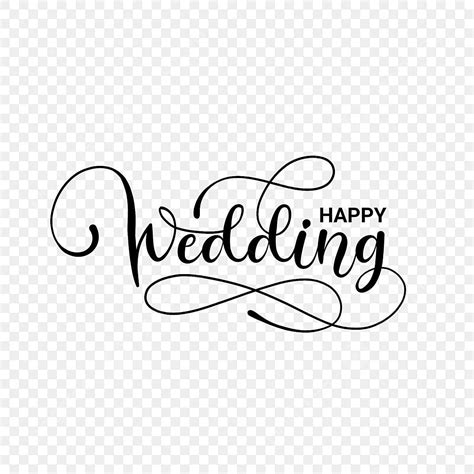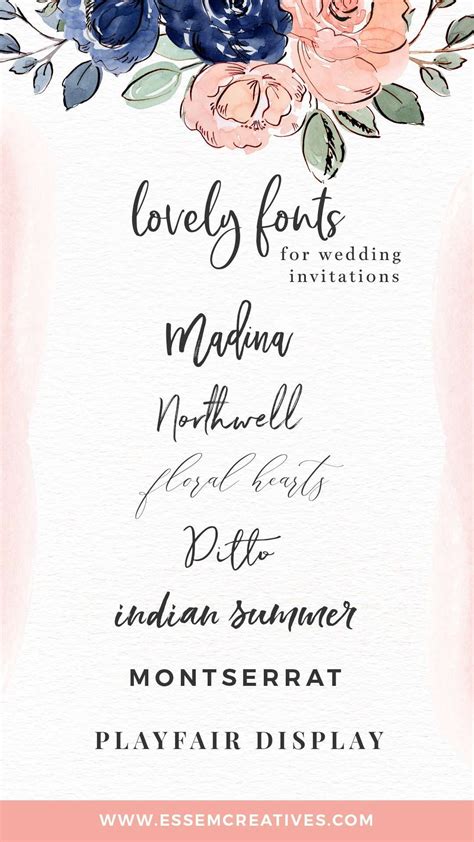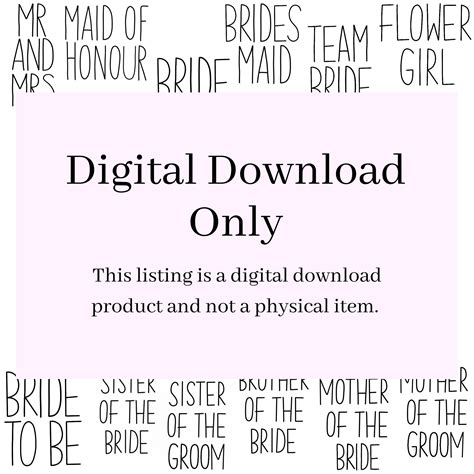
Planning a wedding involves countless details, from the venue and attire to the decorations and invitations. One often overlooked but crucial element is the choice of a Wedding Party Font. The font you select can set the tone for your entire event, reflecting your personal style and the overall theme of your wedding. Whether you're aiming for elegance, whimsy, or modernity, the right font can make a significant impact on how your guests perceive your special day.
Understanding the Importance of a Wedding Party Font
The Wedding Party Font is more than just a way to display text; it's a visual representation of your wedding's aesthetic. A well-chosen font can enhance the beauty of your invitations, menus, signage, and other printed materials. It can also create a cohesive look that ties all your wedding elements together, making your event feel polished and thoughtfully planned.
Choosing the Right Wedding Party Font
Selecting the perfect Wedding Party Font involves considering several factors, including the theme of your wedding, the overall mood you want to create, and the readability of the font. Here are some steps to help you make the best choice:
- Identify Your Wedding Theme: Whether your wedding is rustic, modern, vintage, or bohemian, the font should complement your chosen theme. For example, a rustic wedding might benefit from a handwritten or calligraphy-style font, while a modern wedding could use a sleek, sans-serif font.
- Consider the Mood: Think about the emotions you want to evoke. Elegant and sophisticated weddings often use classic serif fonts, while playful and whimsical weddings might opt for more playful, decorative fonts.
- Ensure Readability: No matter how beautiful a font is, it must be easy to read. Guests should be able to understand the information on your invitations, menus, and other materials without straining their eyes.
Popular Wedding Party Fonts for Different Themes
Here are some popular Wedding Party Font options for various wedding themes:
| Theme | Font Recommendations |
|---|---|
| Rustic | Lobster, Great Vibes, Pacifico |
| Modern | Montserrat, Roboto, Helvetica |
| Vintage | Playfair Display, Lora, Great Vibes |
| Bohemian | Allura, Dancing Script, Pacifico |
| Elegant | Bodoni, Didot, Playfair Display |
These fonts are just a starting point. There are countless options available, and you may find that a unique or custom font better suits your vision.
Where to Use Your Wedding Party Font
Once you've chosen your Wedding Party Font, consider where you'll use it throughout your wedding. Some common applications include:
- Invitations: The font on your invitations sets the tone for your entire event. Choose a font that reflects your wedding theme and ensures it's legible.
- Menus: A well-designed menu can enhance the dining experience. Use your chosen font to create a cohesive look with your invitations and other materials.
- Signage: From welcome signs to table numbers, consistent use of your Wedding Party Font can create a polished and professional appearance.
- Programs: If you're having a ceremony program, use your font to keep the design consistent with your other materials.
- Thank You Cards: After the wedding, use your font on thank you cards to maintain the theme and add a personal touch.
By using your Wedding Party Font consistently across all these elements, you'll create a cohesive and memorable experience for your guests.
Customizing Your Wedding Party Font
If you want to add a personal touch to your wedding, consider customizing your Wedding Party Font. This can be done in several ways:
- Monograms: Incorporate your initials or a special symbol into your font design. This can be a subtle yet meaningful way to personalize your wedding materials.
- Hand-Lettering: If you have a steady hand and some artistic skill, you can create a custom font by hand-lettering your invitations, menus, and other materials. This adds a unique, handmade touch to your wedding.
- Custom Design: Work with a graphic designer to create a custom font that perfectly matches your wedding theme and personal style. This can be a more expensive option, but it ensures a truly unique and memorable design.
Customizing your Wedding Party Font allows you to add a personal touch that reflects your unique style and makes your wedding truly one-of-a-kind.
💡 Note: When customizing your font, make sure to consider the overall design and ensure that any changes do not compromise readability.
Tips for Using Your Wedding Party Font Effectively
To make the most of your chosen Wedding Party Font, follow these tips:
- Pair Fonts Wisely: If you're using more than one font, make sure they complement each other. A common approach is to pair a serif font with a sans-serif font for a balanced look.
- Use Contrast: Vary the size and weight of your font to create visual interest. For example, use a larger, bolder font for headings and a smaller, lighter font for body text.
In wrapping up, the choice of a Wedding Party Font is a crucial aspect of wedding planning that can significantly impact the overall aesthetic and coherence of your special day. By carefully selecting a font that aligns with your theme, considering readability, and using it consistently across all materials, you can create a memorable and visually appealing experience for your guests. Whether you opt for a classic, elegant font or a more playful, whimsical style, the right font can help bring your wedding vision to life and make your day truly unforgettable.